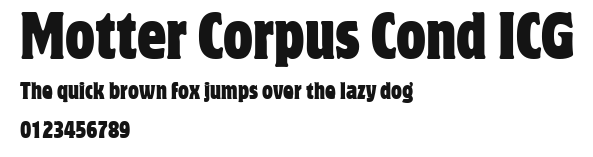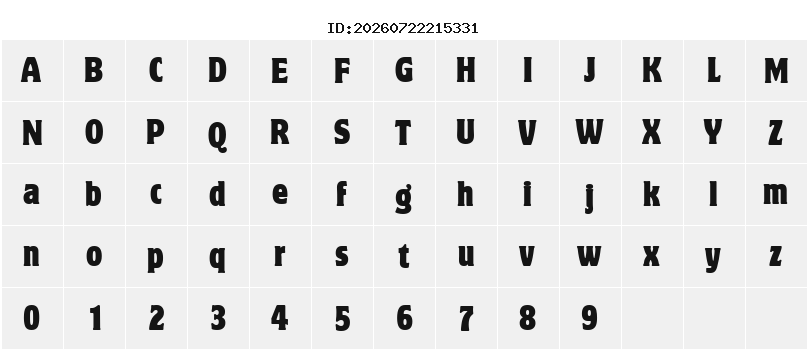
• Font Name: Motter Corpus Cond ICG
• Full Font Name: Motter Corpus Cond ICG
About Motter Corpus Cond ICG.ttf
Motter Corpus Cond ICG.ttf is a modern, elegant sans-serif font designed for ultimate readability and visual harmony. Perfect for branding, headlines, web design, and print materials.